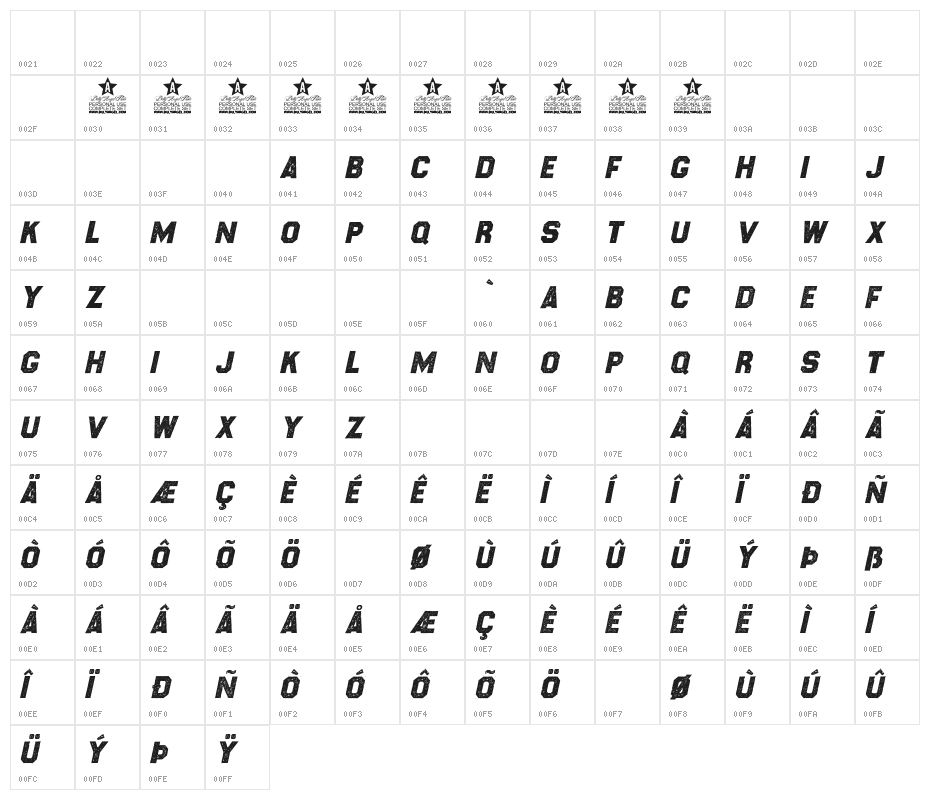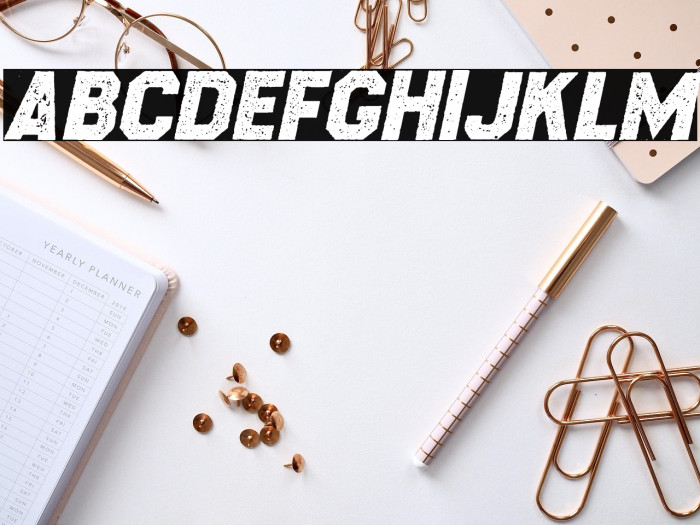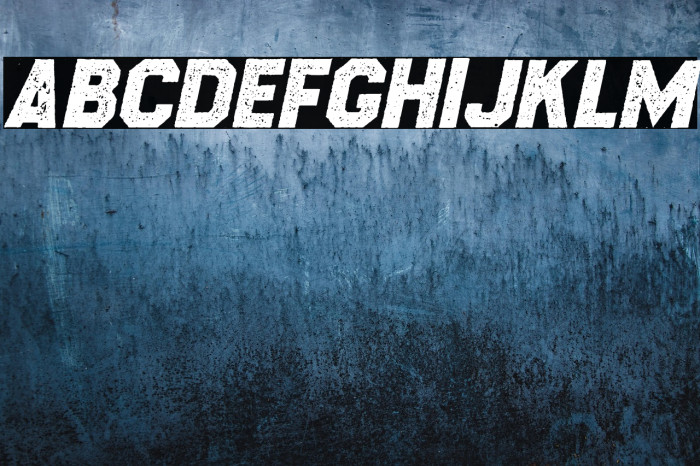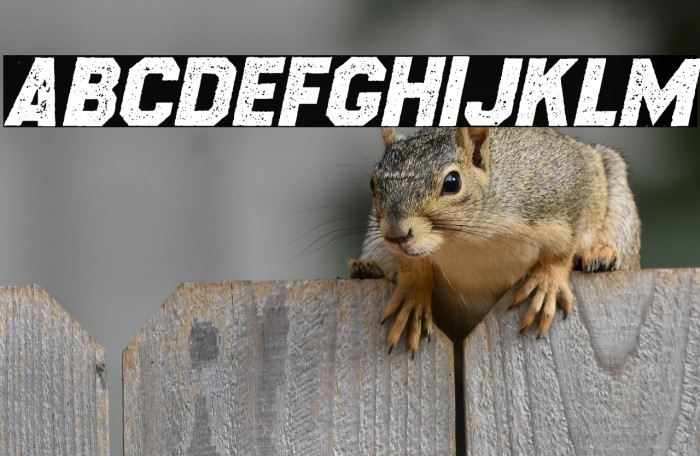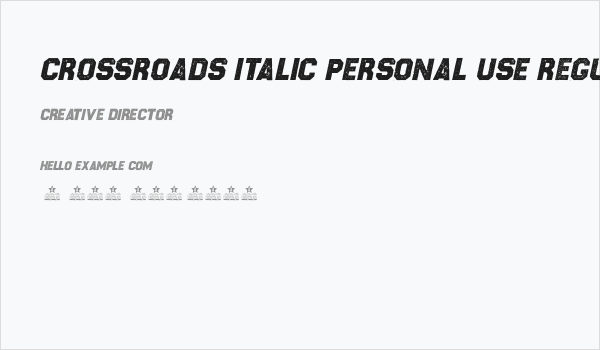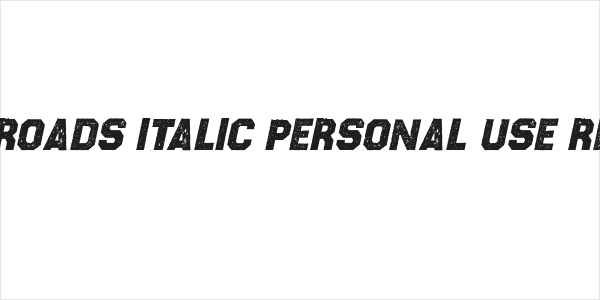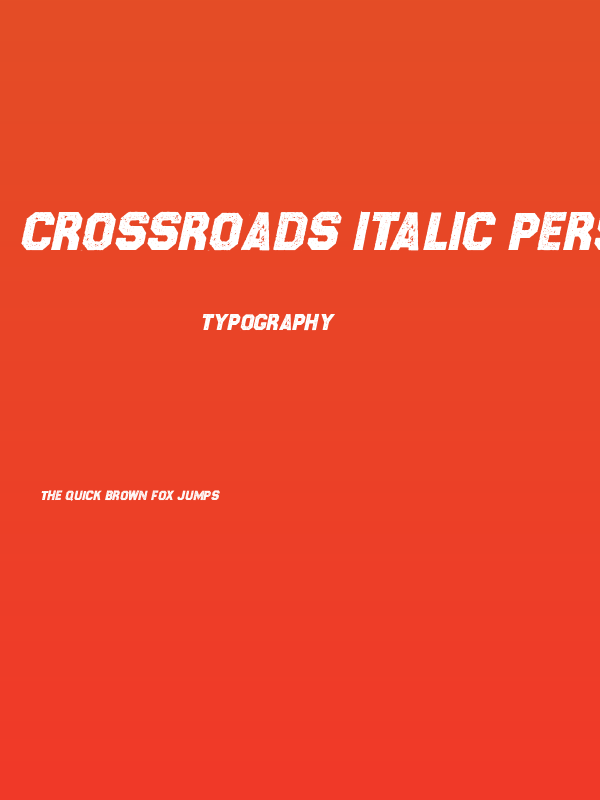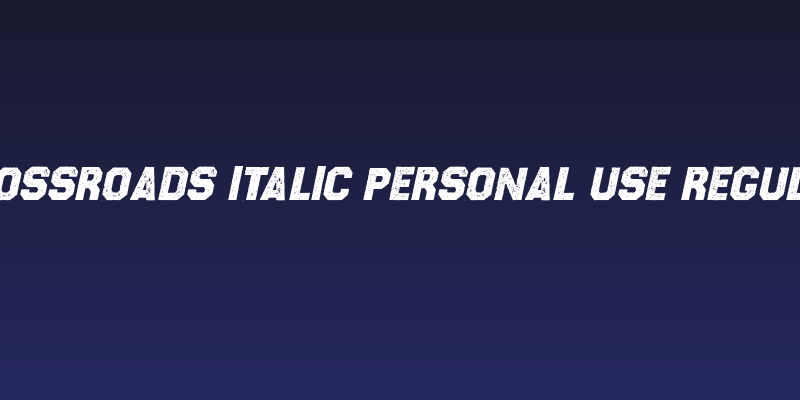
CROSSROADS ITALIC PERSONAL USE Regular Font
CROSSROADS ITALIC PERSONAL USE Regular Description
This font features a bold, italicized style with a distressed texture, giving it a rugged and vintage appearance. The uppercase letters are prominently slanted, adding a sense of motion and dynamism. The texture within each character resembles a worn or weathered look, which enhances its rustic charm. The font's boldness ensures high visibility, making it suitable for impactful designs. The overall style is reminiscent of retro or vintage signage, ideal for projects that require a touch of nostalgia or a gritty aesthetic.
| Proposed Projects | Ideal for vintage-themed posters, retro branding, album covers, and signage that requires a bold statement. |